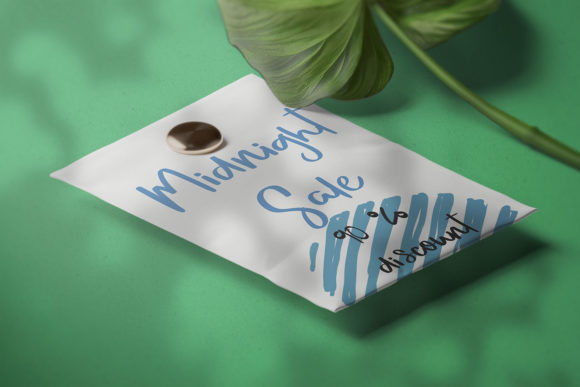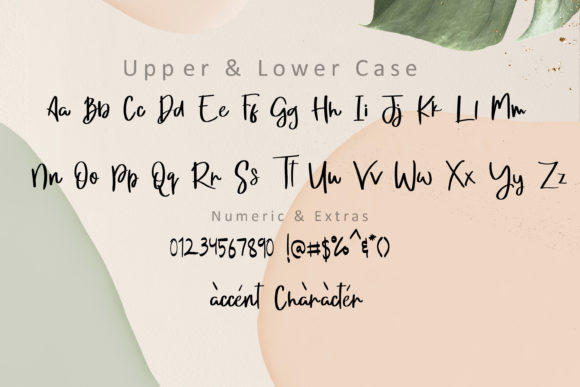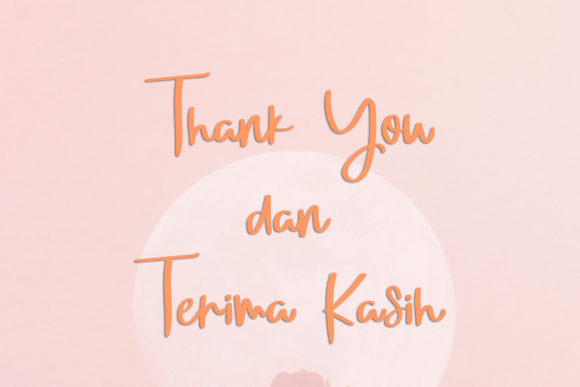
About Harmoni Font
Harmoni is a cute and flexible handwritten font that brings a natural and unique style to a wide range of designs. With its charming appeal, this font is a perfect fit for numerous creative projects. Enjoy the versatility of this beautiful font and explore its endless variations.
The Harmoni font’s cute and handwritten appearance adds a touch of playfulness to any design. Its organic strokes and whimsical details give it a distinct character that stands out. Whether you’re creating greeting cards, posters, logos, or any other design, Harmoni font brings a delightful and approachable vibe.
One of the strengths of Harmoni font lies in its flexibility. Its adaptable nature allows it to seamlessly integrate into various design styles and themes. From children’s illustrations to feminine branding, the font effortlessly enhances the overall look and feel of your projects.
With Harmoni font, you can have fun exploring the numerous variations it offers. Experiment with different letter combinations, ligatures, and swashes to create truly unique and personalized designs. Let your creativity soar and embrace the playful possibilities this font presents.
In summary, Harmoni font is a cute and flexible handwritten font that adds a natural and unique style to a wide range of designs. Its versatility and charming appearance make it a joy to work with. Have fun with this beautiful font and explore its endless variations to create captivating and memorable designs.